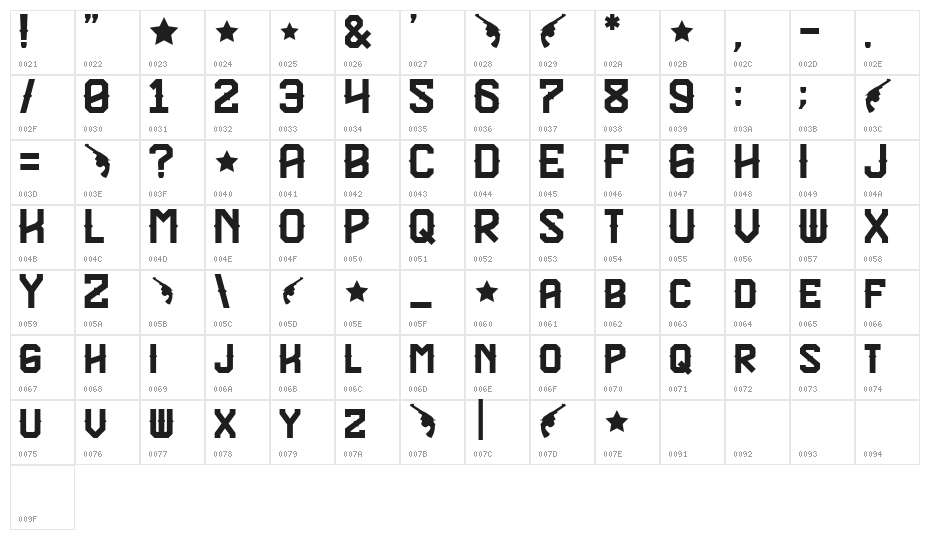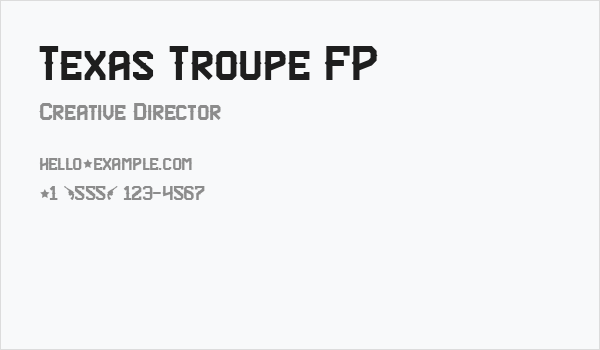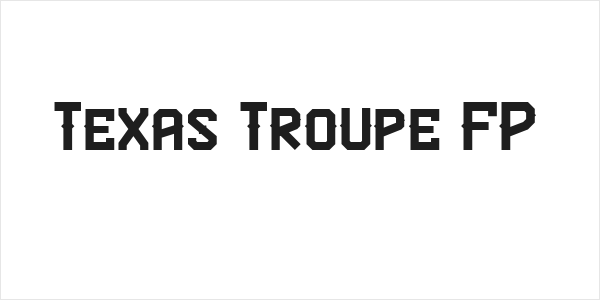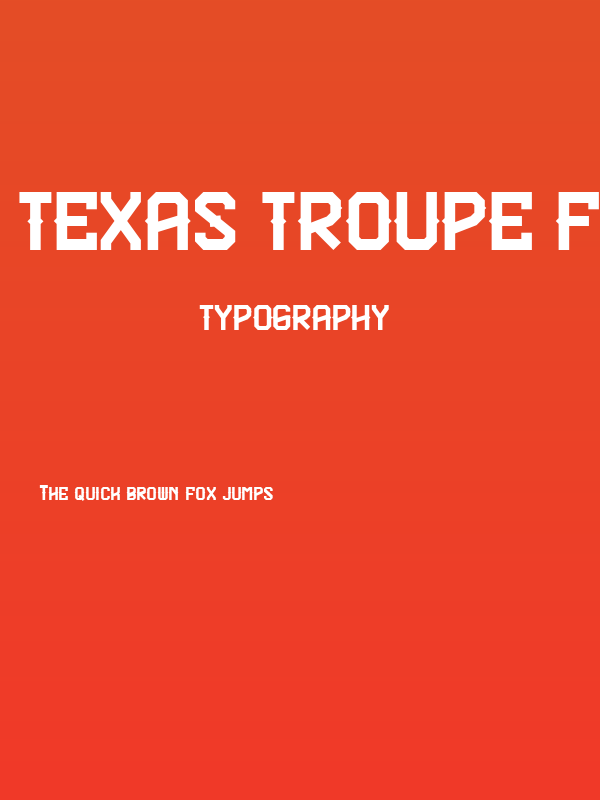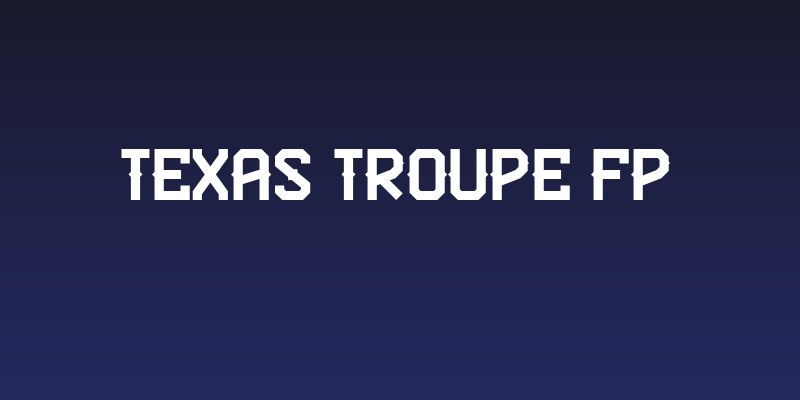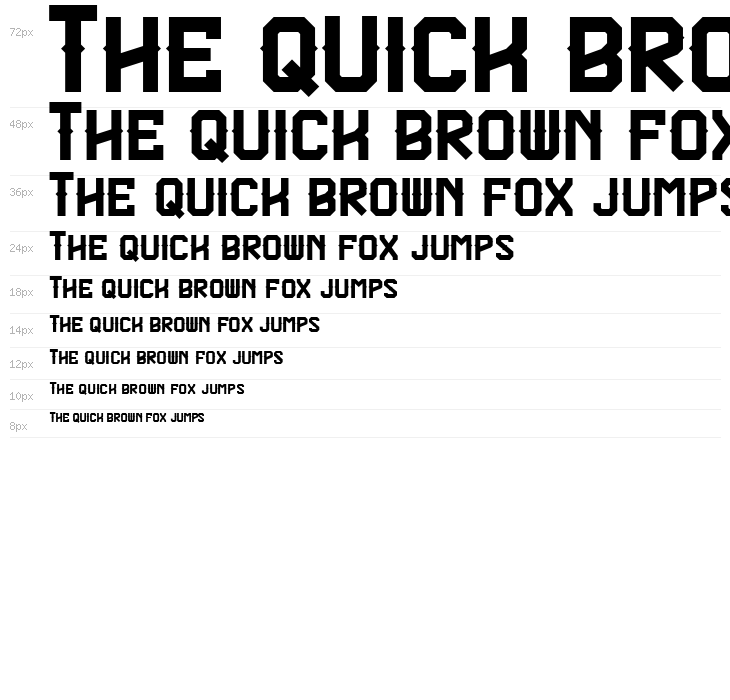
Texas Troupe FP Font
Texas Troupe FP Description
This font features a bold, geometric design with a strong, angular presence. The characters are constructed with thick, blocky lines that create a sense of strength and stability. The uppercase letters are uniform in height, while the numbers and special characters maintain the same bold style, ensuring consistency throughout. The font's unique style is accentuated by its sharp edges and distinct, almost stencil-like appearance, making it stand out in any design. The spacing between characters is tight, which adds to its compact and robust look.
| Proposed Projects | Ideal for posters, logos, branding, and any design requiring a bold, impactful statement. |